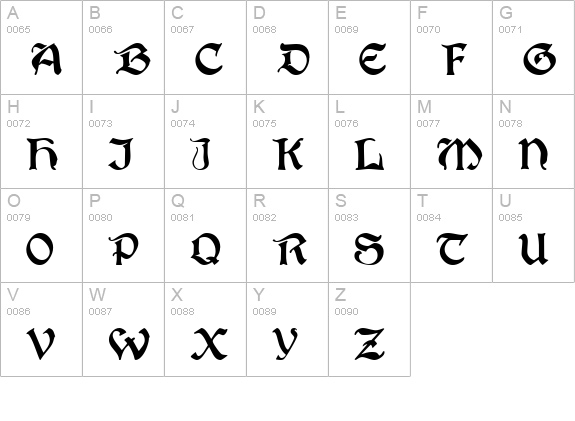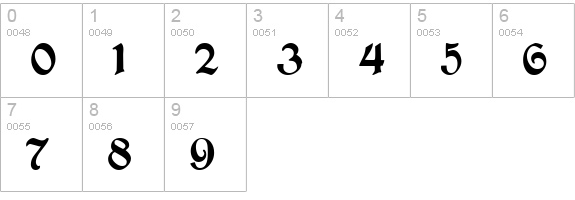
ConcordiaSSK Font Details
ConcordiaSSK font is a versatile and elegant typeface that exudes sophistication and modernity. Its sleek lines and balanced proportions make it perfect for a wide range of design projects, from branding to editorial work. The font's timeless appeal and legibility make it a popular choice among designers and creatives looking to make a statement with their typography. The best part about ConcordiaSSK font is that it is completely free to download at FontsMarket.com. This means that you can access this high-quality font without any cost, allowing you to enhance your designs without breaking the bank. Whether you're working on a personal project or a professional assignment, ConcordiaSSK font is sure to elevate your work with its refined aesthetic and effortless style. Download it today and see the difference it can make in your design projects.